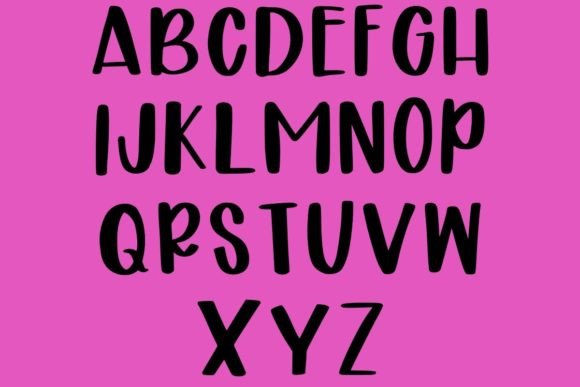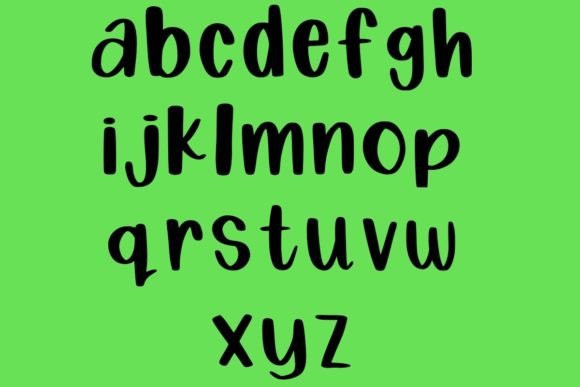
Introduction to Handlettered Homestead Font
Remember that moment when you’re brainstorming ideas for a new design project and you stumble upon the perfect font? It’s like the missing piece of a puzzle finally falls into place. For me, that moment came when I discovered the Handlettered Homestead Font. Its unique blend of bold and thin strokes gives it a handwritten feel that’s perfect for adding a touch of personality to your designs.
As a designer, you know how valuable it is to have access to high-quality design resources like the Handlettered Homestead Font. Not only does it make your creative process easier, but it also elevates the overall quality of your projects. Whether you’re working on a sign, card, or shirt design, this font is sure to bring a fresh and modern touch to your work.
Key Features of Handlettered Homestead Font
- Unique, handlettered design with a rustic, homespun feel, perfect for creative projects and design resources.
- High-quality font with transparent background, ideal for use on images, graphics, and other design elements.
- Perfect for use in design projects that require a personal, homemade touch, such as wedding invitations, food blogs, and home decor designs.
- Unique characteristics include subtle imperfections and variations in letterforms, giving each design a one-of-a-kind feel.
Honest Review: Handlettered Homestead Font
- The Handlettered Homestead Font has a high quality, unique aesthetic that’s perfect for creative projects.
- It has a transparent background, making it easy to overlay on top of other design elements.
- The font is highly versatile and can be used for a variety of projects, from branding to editorial content.
- The font may not be suitable for projects that require a more modern or sleek aesthetic.
- Some users may find the font to be a bit too ornate or busy for certain design applications.
Overall, I’m impressed with the Handlettered Homestead Font. It’s a great design resource that can add a unique touch to any creative project. While it may have some limitations, I think it’s well worth the free download. I’d definitely recommend it to designers looking for a high-quality, unique font.
To get the most out of the Handlettered Homestead Font, use it with a transparent background to create a clean and modern look. Experiment with different font sizes and colors to add visual interest to your design.
The Handlettered Homestead Font is perfect for creating invitations, labels, and branding materials. Its rustic charm makes it ideal for rustic or vintage-themed designs, while its high quality ensures it looks great on any background.